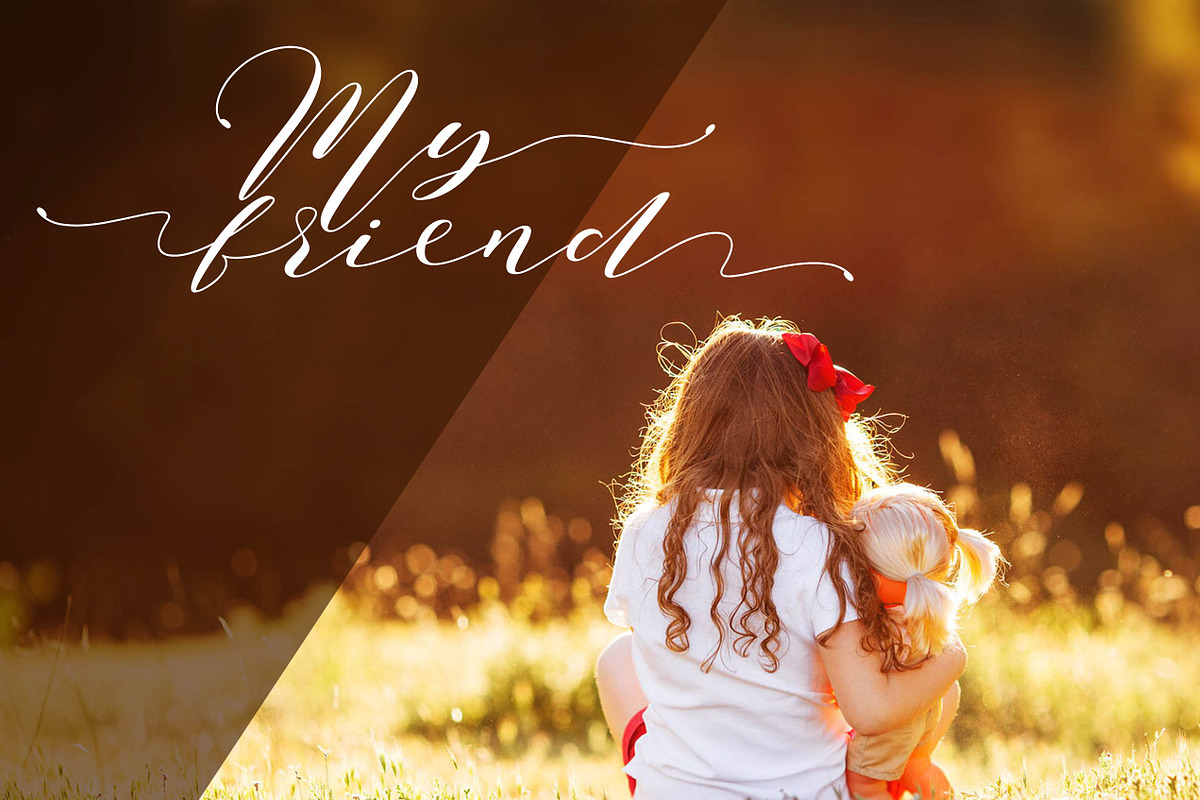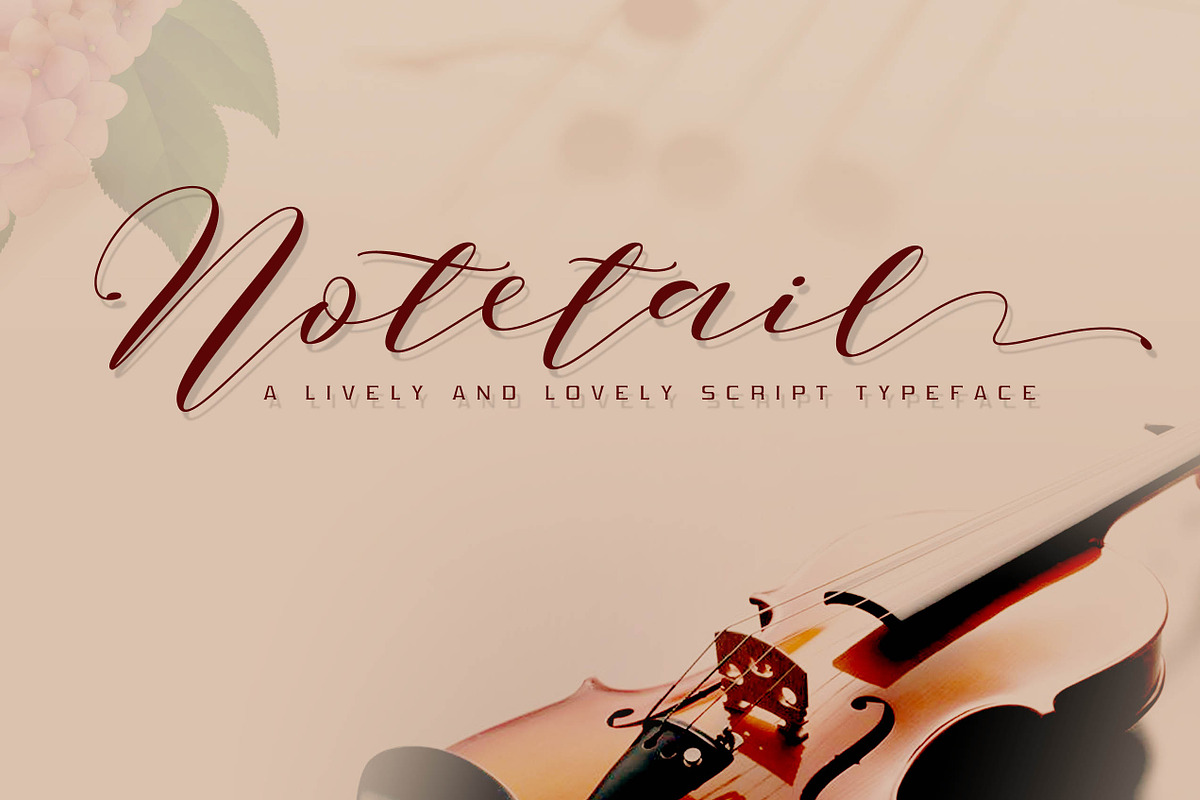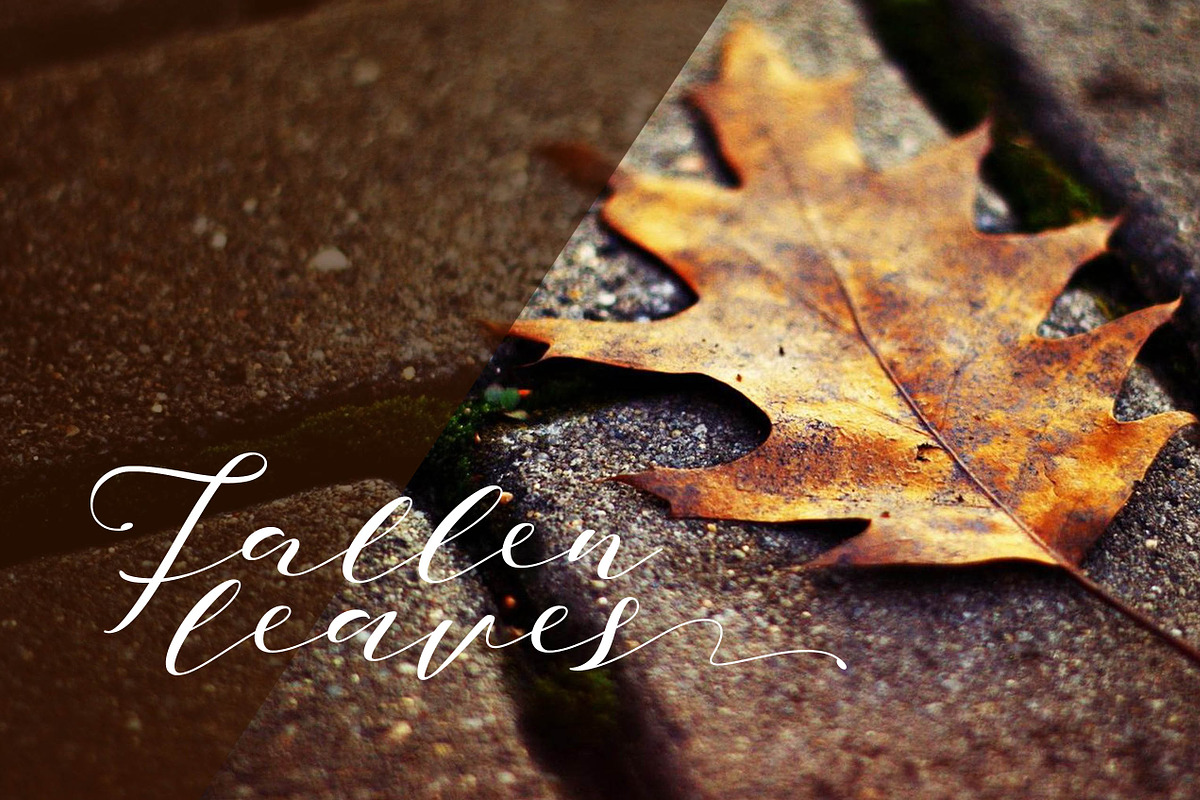
Notetail Script Typeface
Notetail Script Typeface is a lively and dragging tail note font, like a little elf in the dance, it contains two Prefix suffix changes. For logo, covers, headlines, posters, etc.Show your creativity, and dance your spirit.
It includes 2 styles:
- Notetail Script Typeface is a lively and dragging tail note font, like a little elf in the dance, it contains two Prefix suffix changes.
- Notetail Beat Regular
- Notetail Stretch Regular
Notetail Script Typeface by alphadesign fits naturally into Branding, posters, packaging, typography.